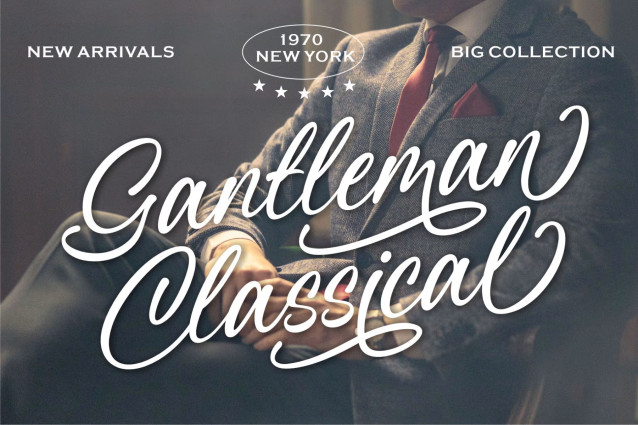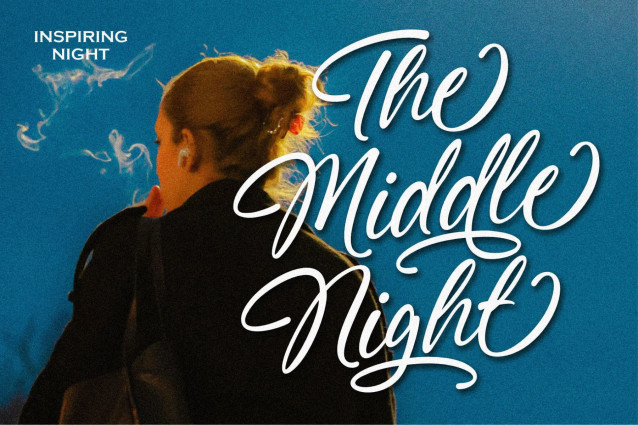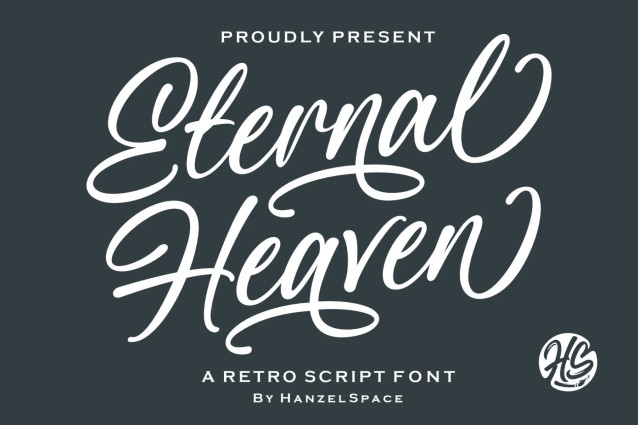
Eternal Heaven – Retro Script Font
Introducing the new font “Eternal Heaven” which I spent quite a bit of time creating. This font was crafted with meticulous care and confidence in every letterform, resulting in a beautiful and unique character with a retro style and classic touches.
I hope this font can help graphic designers with their projects. It can be used for various conceptual purposes, such as posters, packaging, logos, banners, quotes, t-shirts, and more.
Introducing the new font “Eternal Heaven” which I spent quite a bit of time creating. This font was crafted with meticulous care and confidence in every letterform, resulting in a beautiful and unique character with a retro style and classic touches.
I hope this font can help graphic designers with their projects. It can be used for various conceptual purposes, such as posters, packaging, logos, banners, quotes, t-shirts, and more.
– Full Set of standard alphabet and punctuation
– Multilingual Characters (ÁÂÄÀÅÃÆÇÐÉÊËÈÍÎÏÌÑÓÔÖÒØÕÚÛÜÙẂŴẄẀÝŶŸỲ áâäàåãæçðéêëèíîïìñóôöòøõœúûüùẃŵẅẁýŷÿỳ€£¥)